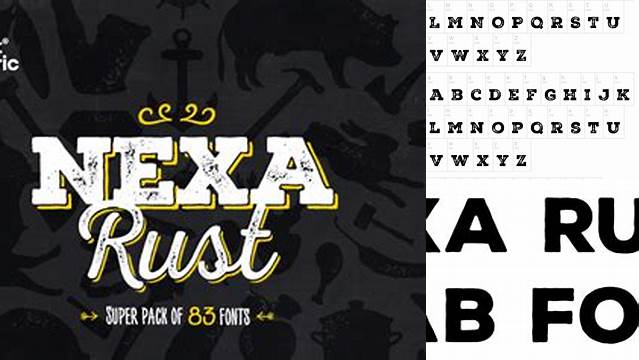
Exploring the Unique Charm of Nexa Rust Slab Black Font
The world of typography is vast and ever-evolving, offering designers and creatives a dazzling array of choices to bring their visions to life. Among these, certain fonts stand out for their distinctive character and versatility. The Nexa Rust Slab Black font is one such gem, a powerful typeface that blends ruggedness with a touch of industrial chic. If you're on the hunt for a font that commands attention and adds a unique texture to your projects, then this is definitely one to consider. Guys, let's dive deep into what makes this font so special and how you can get your hands on it for free.
Nexa Rust Slab Black isn't just another font; it's an experience. It belongs to the Nexa family, known for its geometric sans-serif roots, but the 'Rust' variant introduces a captivating, distressed aesthetic. The 'Slab Black' part signifies its bold weight and the presence of slab serifs, which are essentially block-like extensions at the ends of strokes. This combination results in a font that feels strong, grounded, and has a palpable sense of history or wear. Imagine it on a vintage poster, a craft beer label, or even a modern streetwear brand – it just works. Its versatility stems from this ability to evoke different moods, from raw and gritty to sophisticated and impactful. The distressed texture isn't just a gimmick; it adds depth and character, making each letter feel almost handcrafted. This is crucial for designers looking to break away from the sterile perfection of digital fonts and inject a more organic, human feel into their work. The boldness of the 'Black' weight ensures excellent legibility, even when scaled down, while the slab serifs provide a sturdy anchor, making headlines and titles pop.
Understanding the Nexa Rust Slab Black Font Family
Before we get into the nitty-gritty of downloading the Nexa Rust Slab Black font, it's super important to understand its place within the broader Nexa font family. Nexa itself is a sans-serif typeface designed with geometric forms in mind, offering clean lines and a modern aesthetic. However, the magic truly happens when you explore its more experimental siblings, like the Nexa Rust collection. The 'Rust' aspect introduces a much-needed dose of texture and imperfection, giving it a distinctly vintage and industrial vibe. Think old factory signs, worn metal plates, or distressed wooden crates – that's the kind of atmosphere the Rust variants cultivate.
Within the Nexa Rust family, you'll find various styles, each with its own personality. But the Nexa Rust Slab Black font is a standout. The 'Slab' in its name refers to the prominent, blocky serifs that add weight and a sense of solidity to the letters. These aren't your delicate, thin serifs; they are robust and commanding. Combined with the 'Black' weight, which is the heaviest in its category, this font becomes incredibly impactful. It's the kind of font you use when you want to make a statement, grab your audience's attention immediately, and convey a sense of strength and reliability. Whether you're designing a logo for a rugged outdoor brand, a title for a hard-hitting documentary, or a bold heading for a website, this font delivers. Its texture, combined with its sheer presence, makes it a fantastic choice for projects that require a touch of grunge, authenticity, or a strong industrial feel. It’s not just about being bold; it’s about having character, and the Nexa Rust Slab Black font has that in spades. Its detailed texture makes it particularly suitable for large-scale applications where the nuances can be fully appreciated, but it also holds its own in smaller sizes, thanks to its inherent boldness and clear structure. The interplay between the solid slab serifs and the distressed texture creates a visual dynamism that’s hard to ignore, offering a unique aesthetic that’s both classic and contemporary.
Using Nexa Rust Slab Black Font in Your Design Projects
So, you've downloaded the Nexa Rust Slab Black font, and now you're wondering how to best integrate this beast into your designs. This is where the fun really begins! Its strong, textured character makes it ideal for a variety of applications, but it truly shines when used for impactful headlines, bold titles, and attention-grabbing logos. Think about projects where you want to convey a sense of strength, authenticity, or an industrial edge. It's fantastic for branding materials for businesses in construction, mechanics, craft brewing, or anything with a rugged, handmade, or vintage appeal.
When using Nexa Rust Slab Black, consider its weight and texture. Because it's a 'Slab Black' font, it's inherently bold and visually heavy. This means it works exceptionally well for display purposes – think posters, book covers, signage, and website hero sections. For body text, it might be a bit overwhelming, so pairing it with a simpler, cleaner sans-serif or serif font is often a wise move. This creates a visual hierarchy and ensures readability. For example, you could use Nexa Rust Slab Black for your main title and then switch to a more neutral font for the explanatory paragraphs. Don't be afraid to play with the distressed texture. It adds a unique character that can complement grunge or vintage aesthetics perfectly. You can even enhance this effect by layering it with other textures in your design software. When designing logos, the bold nature of this font ensures it will be memorable and stand out. Its slab serifs provide a solid foundation, making it suitable for brands that want to project stability and reliability. However, be mindful of its complexity; in very small sizes, the rust texture might become less apparent or even look muddy. Test it at different sizes to ensure it maintains its impact and legibility. Experimentation is key, guys! Try it out on different backgrounds, combine it with different color palettes, and see how it transforms your design. Its raw, industrial vibe can add a powerful statement to any creative endeavor, making your work truly unforgettable.
Optimizing Typography with Nexa Rust Slab Black: Tips and Tricks
Maximizing the potential of the Nexa Rust Slab Black font involves more than just typing out words; it's about thoughtful application. This font, with its bold weight and distinct rust texture, is a powerhouse, but like any strong tool, it needs to be handled with care and intention. Let's talk about some pro tips to make sure your typography using this font looks chef's kiss.
First off, kerning and tracking are your best friends. Because Nexa Rust Slab Black has a unique texture and serifs, the spacing between letters (kerning) might need some manual adjustment, especially in large headlines where the details are prominent. Don't just accept the default spacing; zoom in and tweak it until it feels balanced and visually pleasing. Adjusting the overall letter spacing (tracking) can also subtly alter the mood – tighter tracking can feel more condensed and intense, while looser tracking can give it a more spread-out, airy feel, though be careful not to go too loose, as it might diminish its inherent boldness. Secondly, consider color contrast. The dark, textured nature of the font means it pops best against lighter backgrounds. However, don't shy away from using it in darker schemes; just ensure there's enough contrast. Experiment with vibrant accent colors for backgrounds or overlay effects to make the font truly stand out. A deep charcoal background with white or a muted gold text can look incredibly sophisticated. Thirdly, hierarchy is key. As mentioned before, this font is best suited for headlines, titles, or short bursts of text. For longer passages, pair it with a complementary, more readable font. Think of it like a star player – it deserves the spotlight, but it also needs a solid supporting cast. A clean sans-serif like Open Sans or a classic serif like Merriweather can provide that necessary balance. Finally, context is everything. This font screams industrial, vintage, or rugged. Using it on a project that aims for a sleek, minimalist, or futuristic look might feel out of place. Embrace its personality and use it where it naturally fits – think craft breweries, automotive workshops, outdoor gear brands, or gritty film posters. When you nail the context, the font doesn't just look good; it tells a story and reinforces your brand's message. Guys, mastering these subtle adjustments will elevate your designs from good to absolutely stunning.
Here’s why: 1. Boldness and Presence: The 'Black' weight ensures the logo will be highly visible and command attention, whether it's on a website, a product label, or signage. It doesn't easily get lost or overlooked. 2. Unique Character: The 'Rust' texture and the robust 'Slab' serifs give the font a strong personality. This uniqueness helps a brand stand out from competitors who might be using more generic or overly clean typefaces. It immediately communicates a specific vibe – think craft beer, heavy machinery, outdoor gear, or artisanal workshops. 3. Memorability: A distinctive logo is easier to remember. The combination of boldness and texture makes a Nexa Rust Slab Black logo visually arresting and sticky in the viewer's mind. 4. Conveying Brand Values: The font inherently communicates qualities like strength, durability, authenticity, and history. If these are core values of the brand, using this font in the logo directly reinforces that message visually. Considerations: While great for logos, designers need to be mindful of scalability. The intricate rust texture might lose some detail at very small sizes (e.g., on a business card or favicon). Therefore, it's often wise to create a simplified version of the logo for extremely small applications or ensure the texture is robust enough to hold up. Additionally, ensure the brand's overall identity aligns with the font's industrial/rugged aesthetic. If the brand aims for a sleek, minimalist, or high-tech feel, Nexa Rust Slab Black might be incongruous. But for brands that want to embrace their grit and authenticity, it's a fantastic, impactful choice. Guys, if the shoe (or font) fits, wear it – and Nexa Rust Slab Black often fits brands looking for a powerful, character-filled identity.